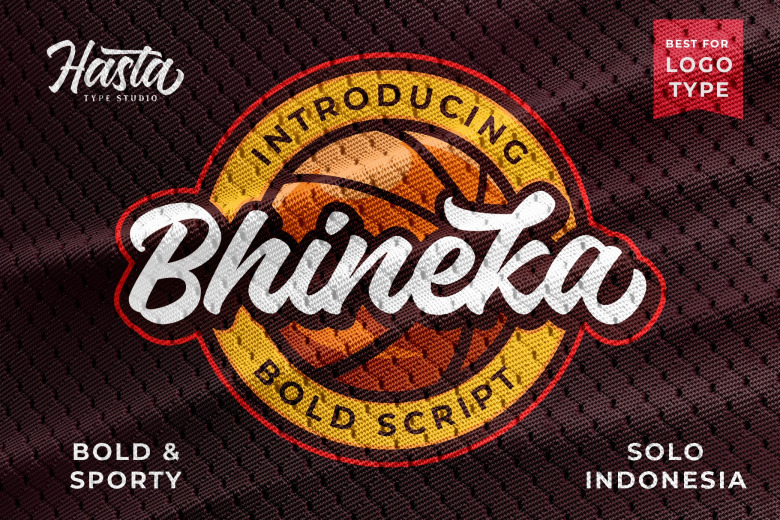
Bhineka Script Font
Bhineka is a sportive and bold logotype script font. It suits sport logos, fashion logos, gaming logos, t-shirt, sport equipment and many more. This font has PUA Encoded so you can access extra alternative glyphs using Character Map (Windows), Font Book (MAC) or a software program like Pop Char (for Windows and Mac).
Bhineka Logotype Script Font